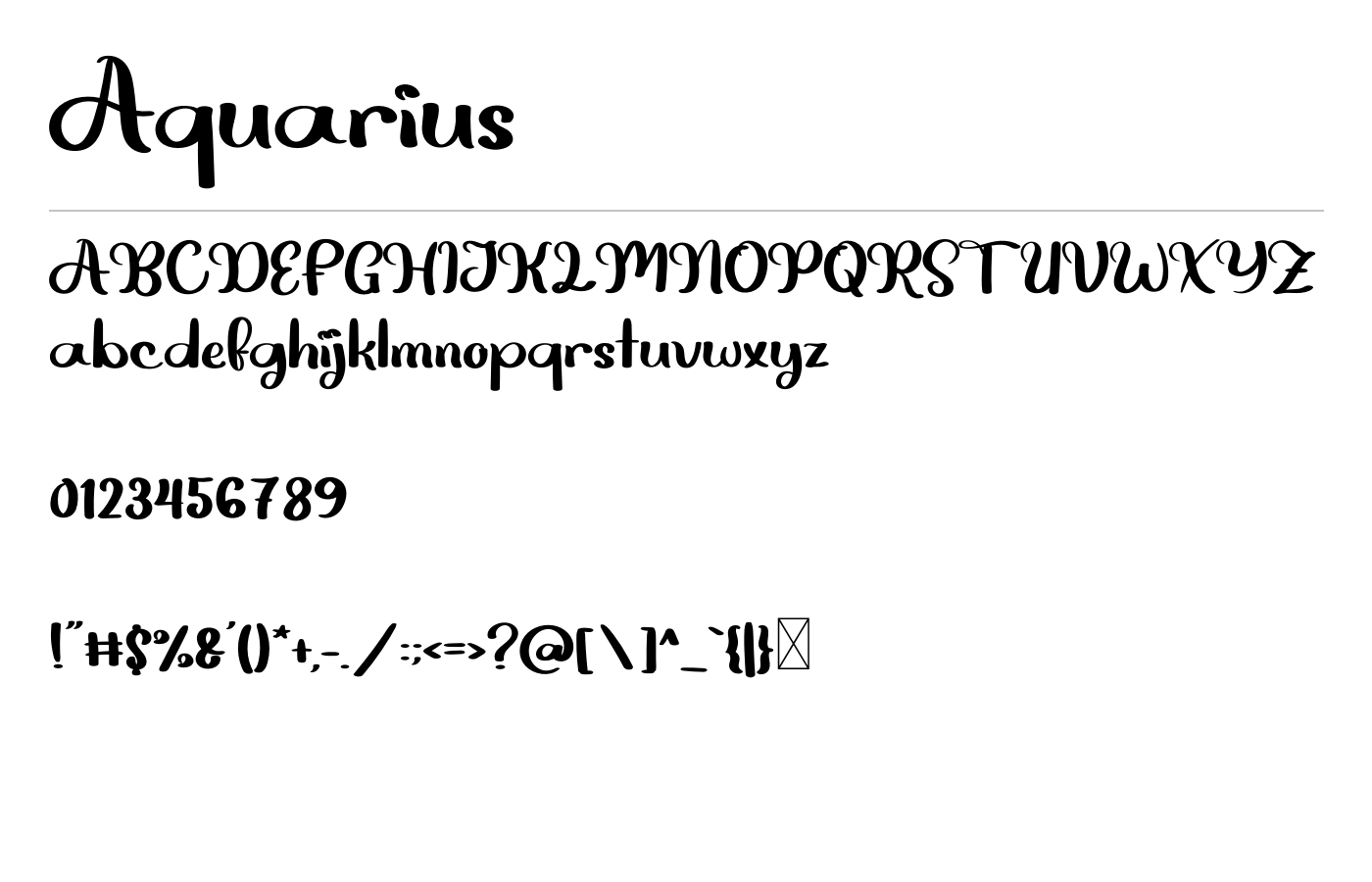
Aquarius is a playful and elegant script-inspired serif font featuring medium weight with smooth, rounded strokes and charming, curly terminal details. Its unique letterforms, including double-story lowercase letters and whimsical uppercase shapes, convey a friendly and artistic personality, making it ideal for creative branding, invitations, and decorative headlines. The font’s balanced contrast and open spacing also ensure good readability while maintaining a distinctive, handcrafted feel.
Aquarius Font
About Aquarius Font